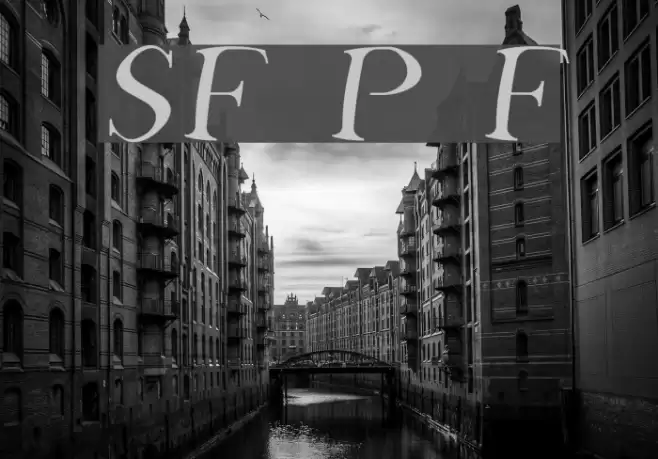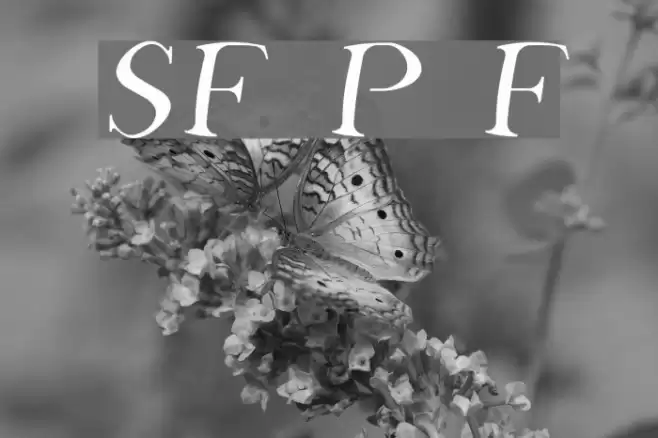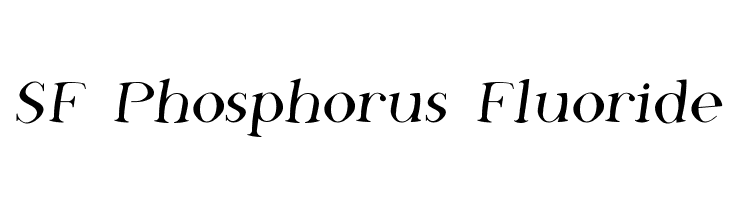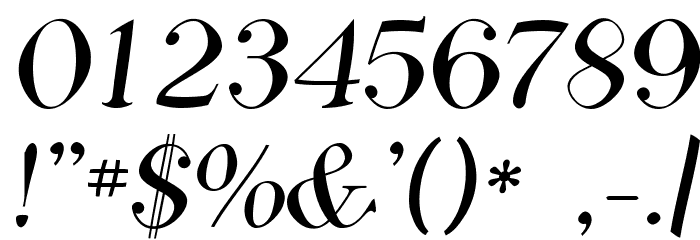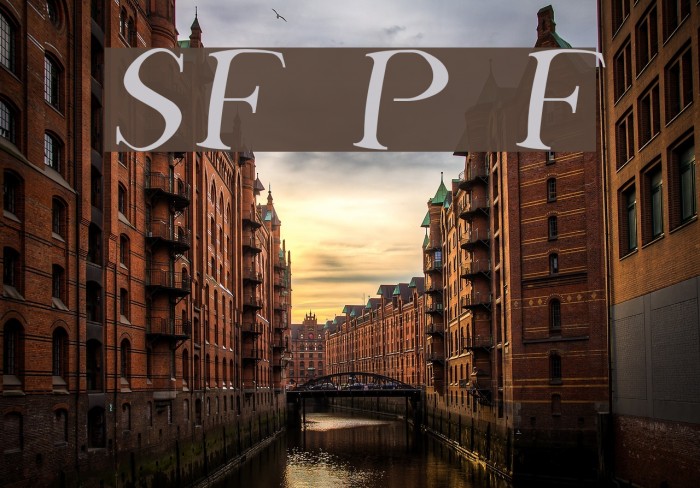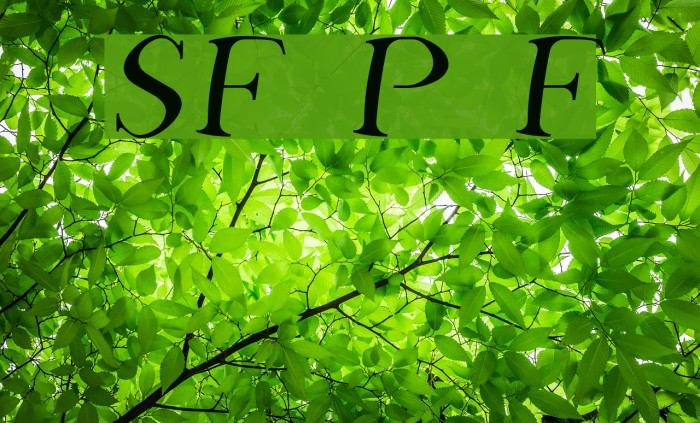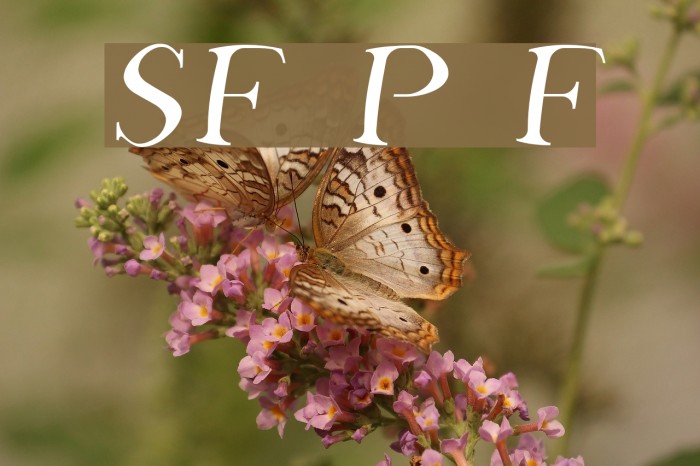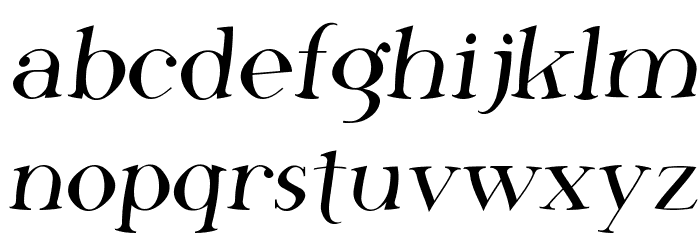
SF Phosphorus Fluoride Font
SF Phosphorus Fluoride Description
This font features a dynamic and elegant design with a distinct italic style. The characters exhibit a high contrast between thick and thin strokes, giving it a sophisticated and classic appearance. The uppercase letters are slightly condensed, while the lowercase letters maintain a more traditional serif structure. The numerals are well-proportioned, and the special characters are designed to complement the overall aesthetic. This font is suitable for projects that require a touch of elegance and formality.
An elegant, high-contrast serif font with a classic italic style from Uncategorized fonts.
- Proposed Projects: Ideal for wedding invitations, luxury branding, editorial design, and formal event programs.
- Overall Style: Classic
- Use Case: Headlines, Logos, Invitations